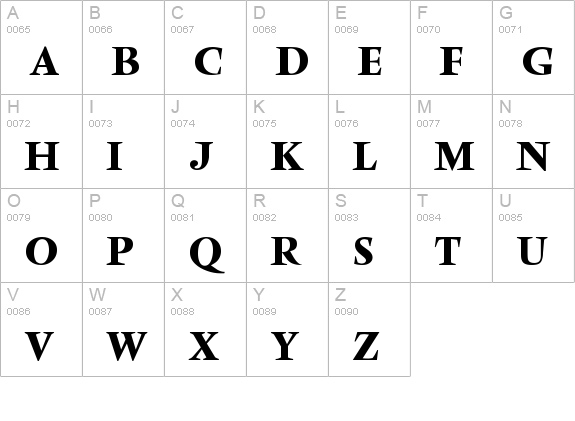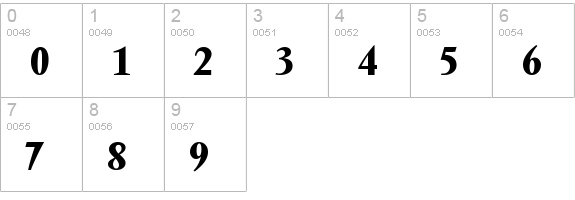
V691-Roman-Bold is a strong, high-contrast variant in the V691 typeface family \xE2\x80\x94 well suited to headlines, attention-grabbing titles, and strong calls-to-action.
V691-Roman-Bold is a modern and elegant font that exudes sophistication and professionalism. With its bold and eye-catching design, this font is perfect for creating impactful headlines, logos, and branding materials. The clean lines and sharp edges of V691-Roman-Bold make it versatile for both digital and print designs. The best part is that V691-Roman-Bold is available for free download at FontsMarket.com. This means you can easily access this high-quality font to elevate your projects without any cost. Don't miss out on the opportunity to add this stylish and versatile font to your collection today!